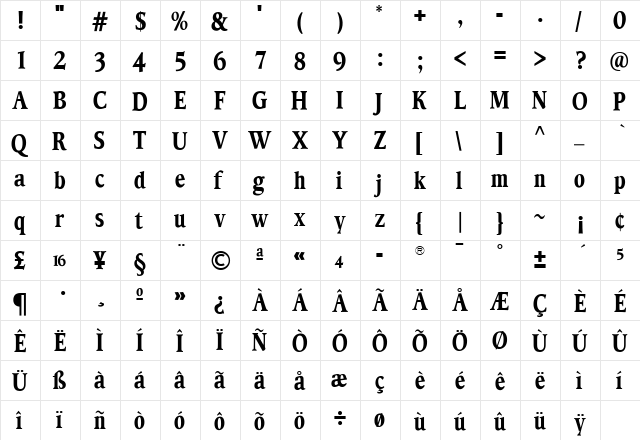
TFHabitatCond Bold
| Foundry | Joseph Treacy, Treacyfaces, Inc |
| Year | 1988 |
Design Context for TFHabitatCond Typeface
TFHabitatCond is a composed and adaptable typeface that performs quietly and consistently across a wide range of design contexts. Its bold stroke weight gives it real presence on the page. Its narrow stance lets it pack a punch even in space-constrained designs.